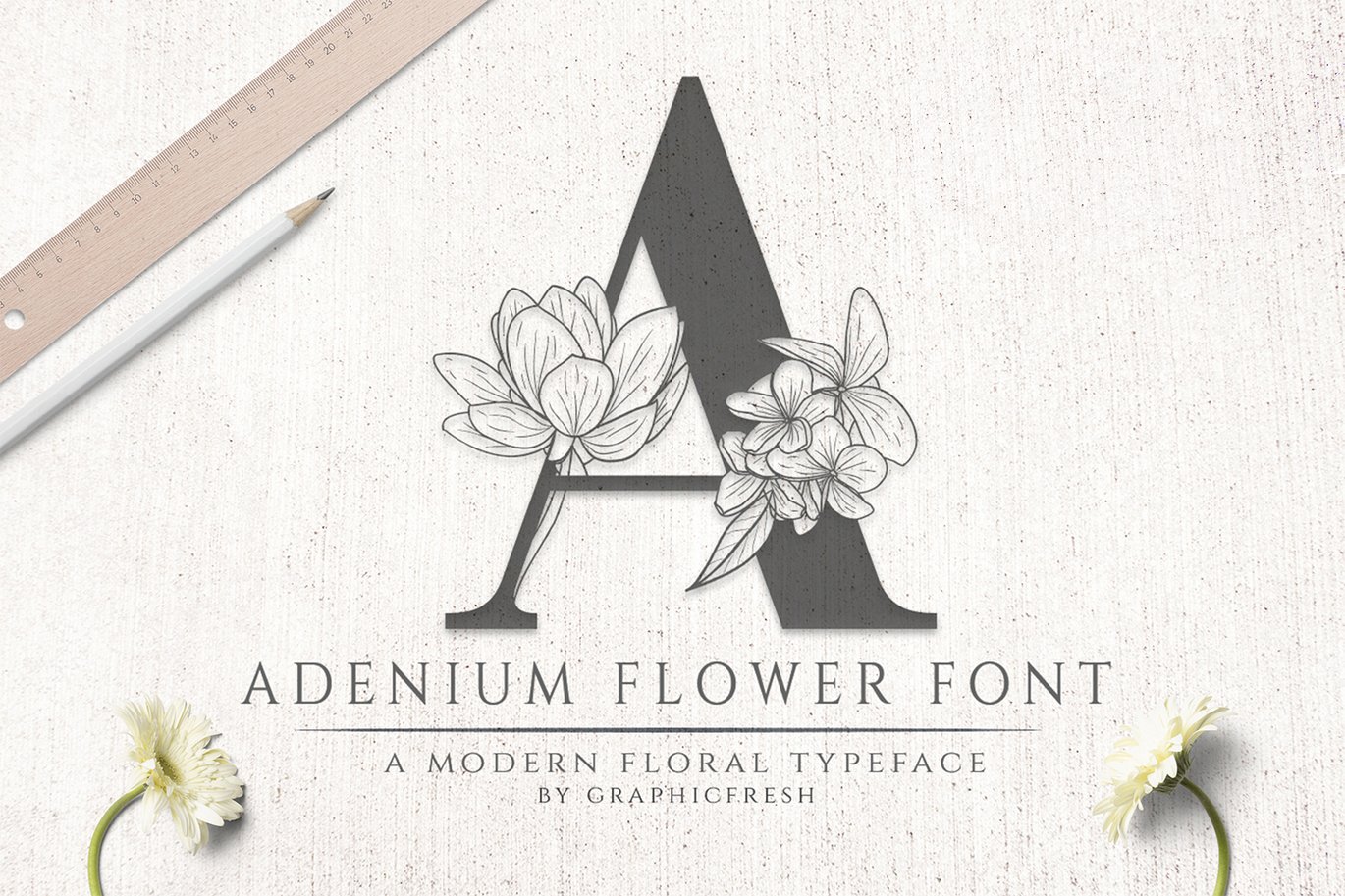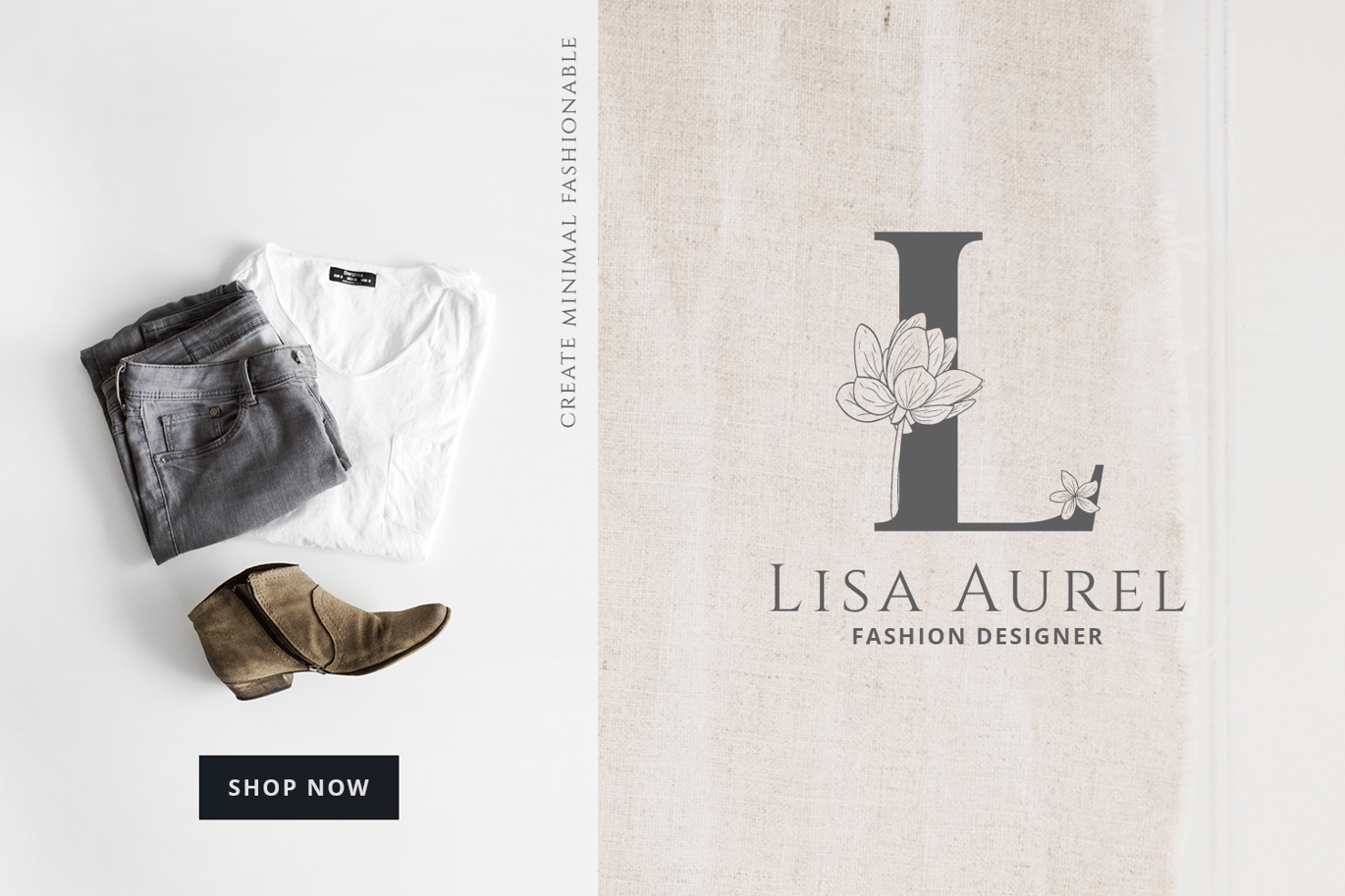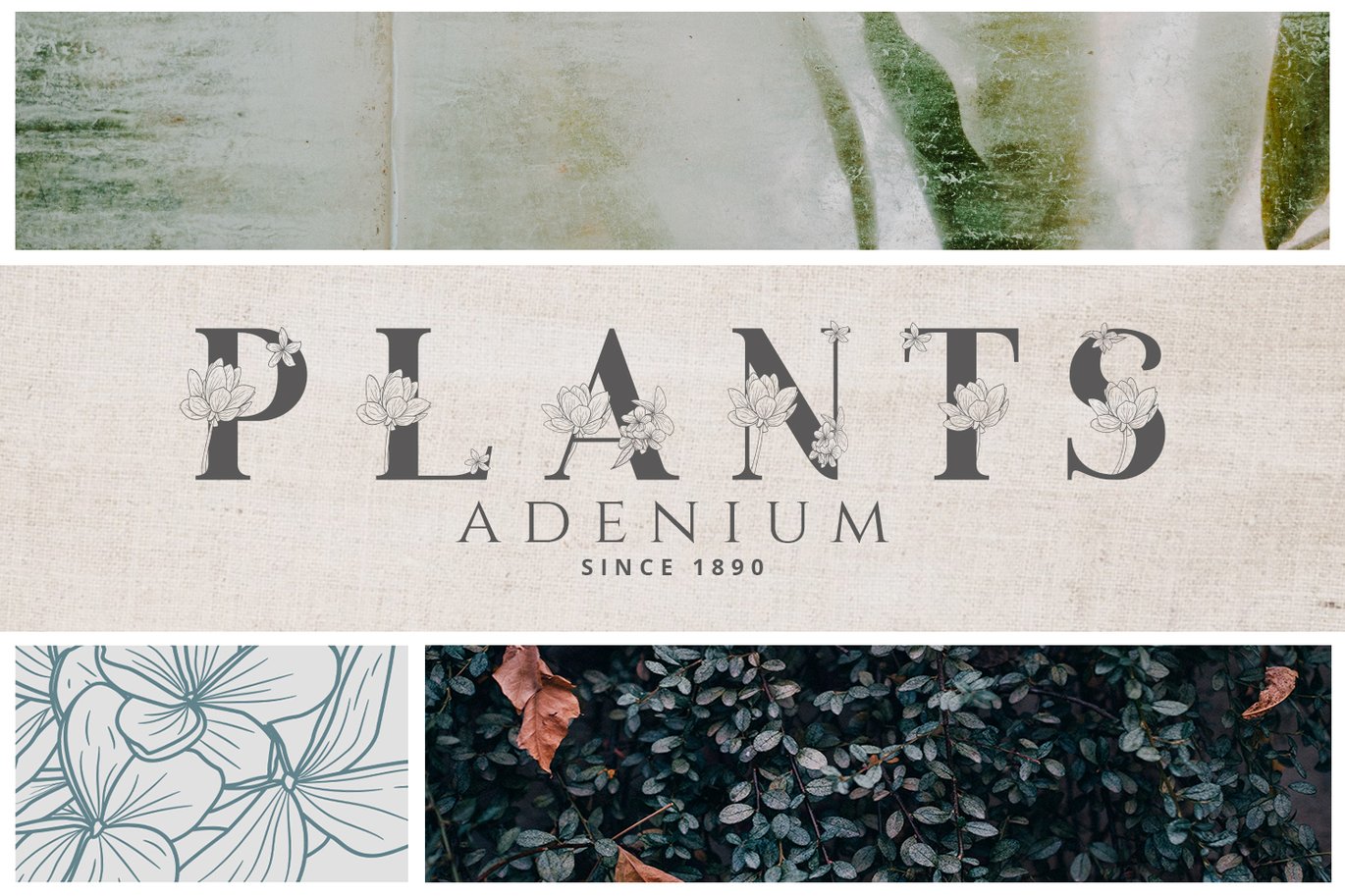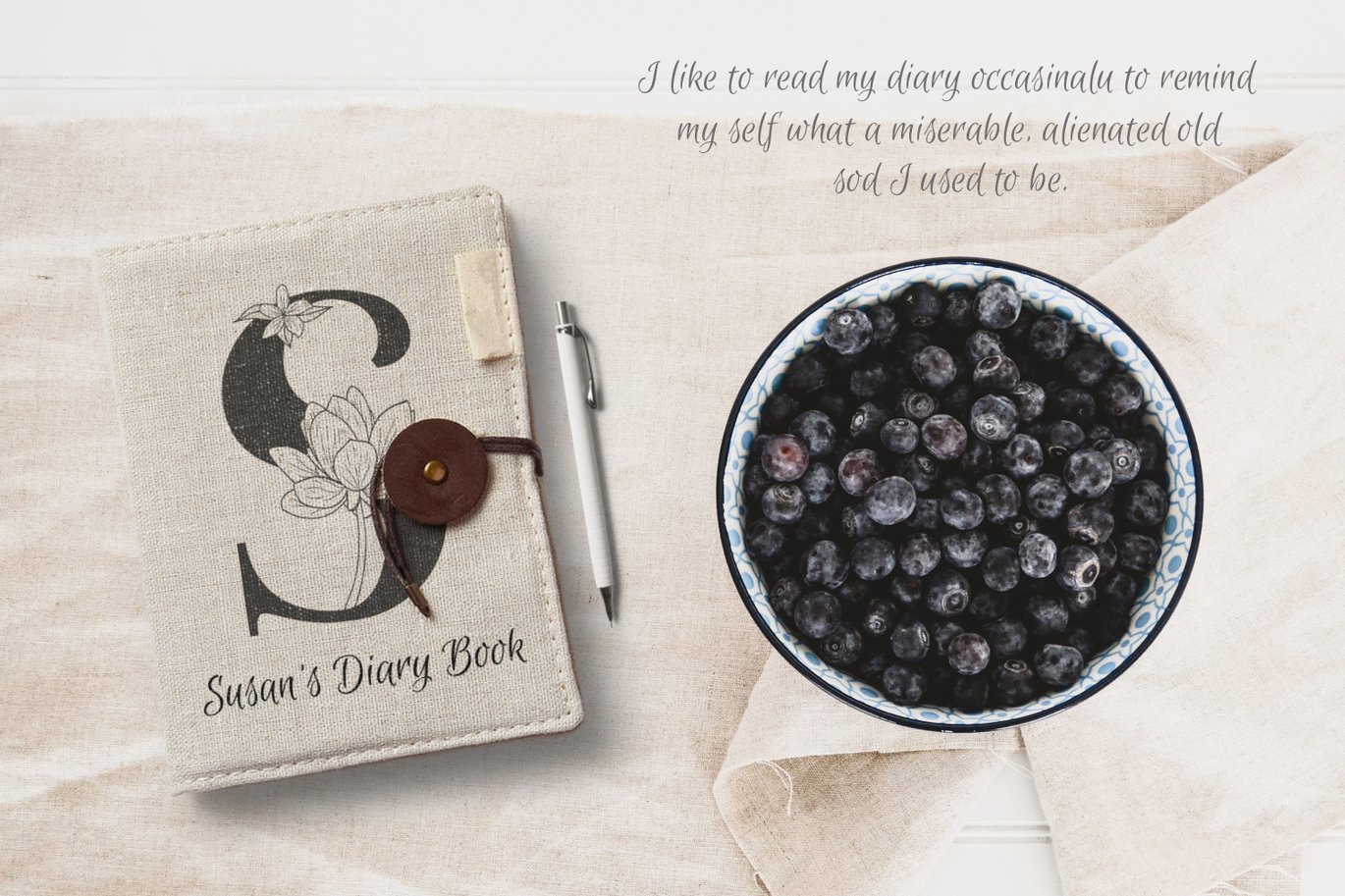
Adenium Flower Font
This font is inspired by frangipani flowers. In Latin it is named “Adenium”. A flower that is very beautiful when viewed. So, I am applying it to a font. Serif style is perfect for this flower. It is ideal for weddings in the jungle, sea and cruise style, for branding and logos – restaurant, hotels, beach resort and many more. This font will help to design a unique brand, stylish logotype, graceful wedding invitation to the event or conceptual business card in the minutes.
This font is made in two versions of each character except numbers and signs. You will find different versions between uppercase and lowercase. When you use this font, you will feel a tremendous sensation in your design.